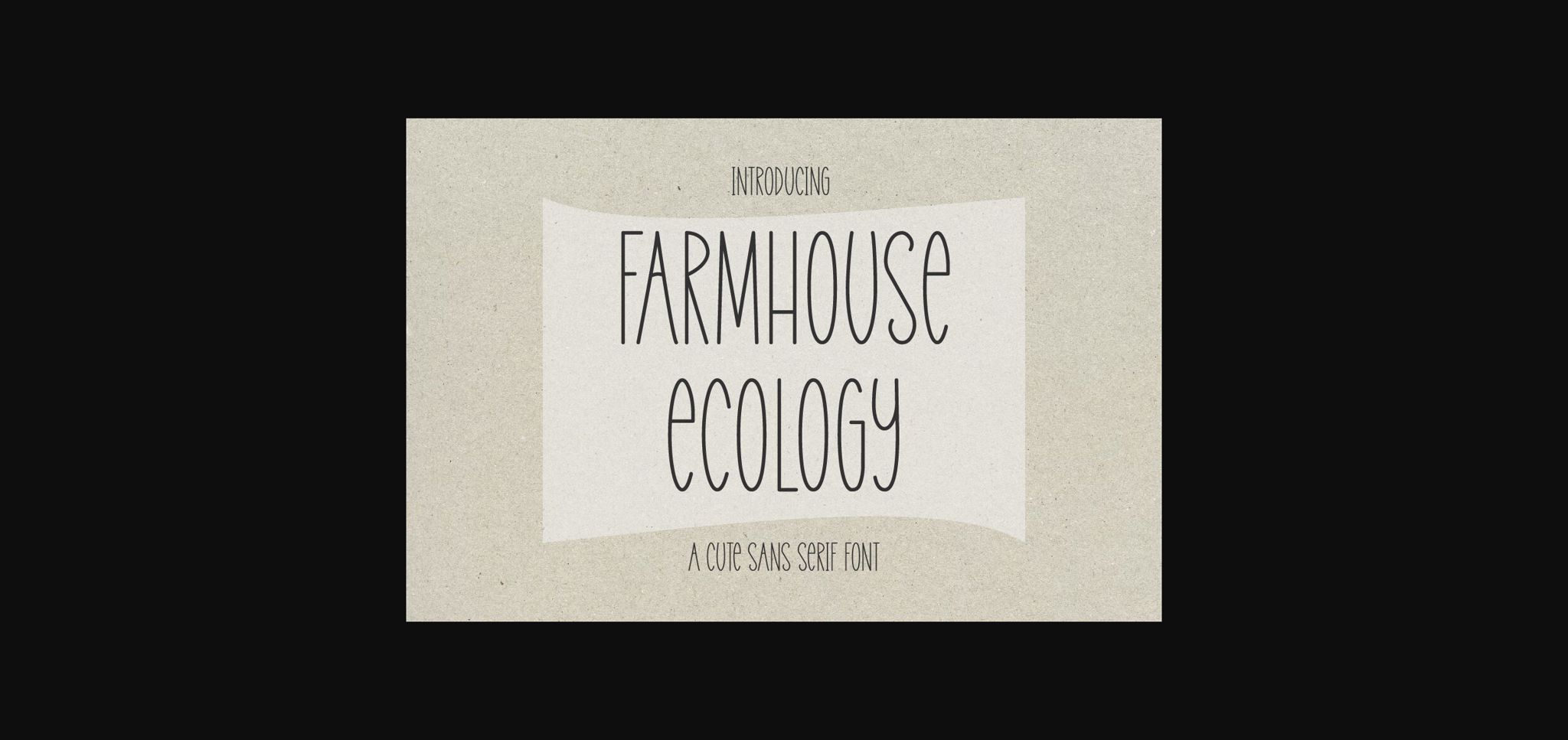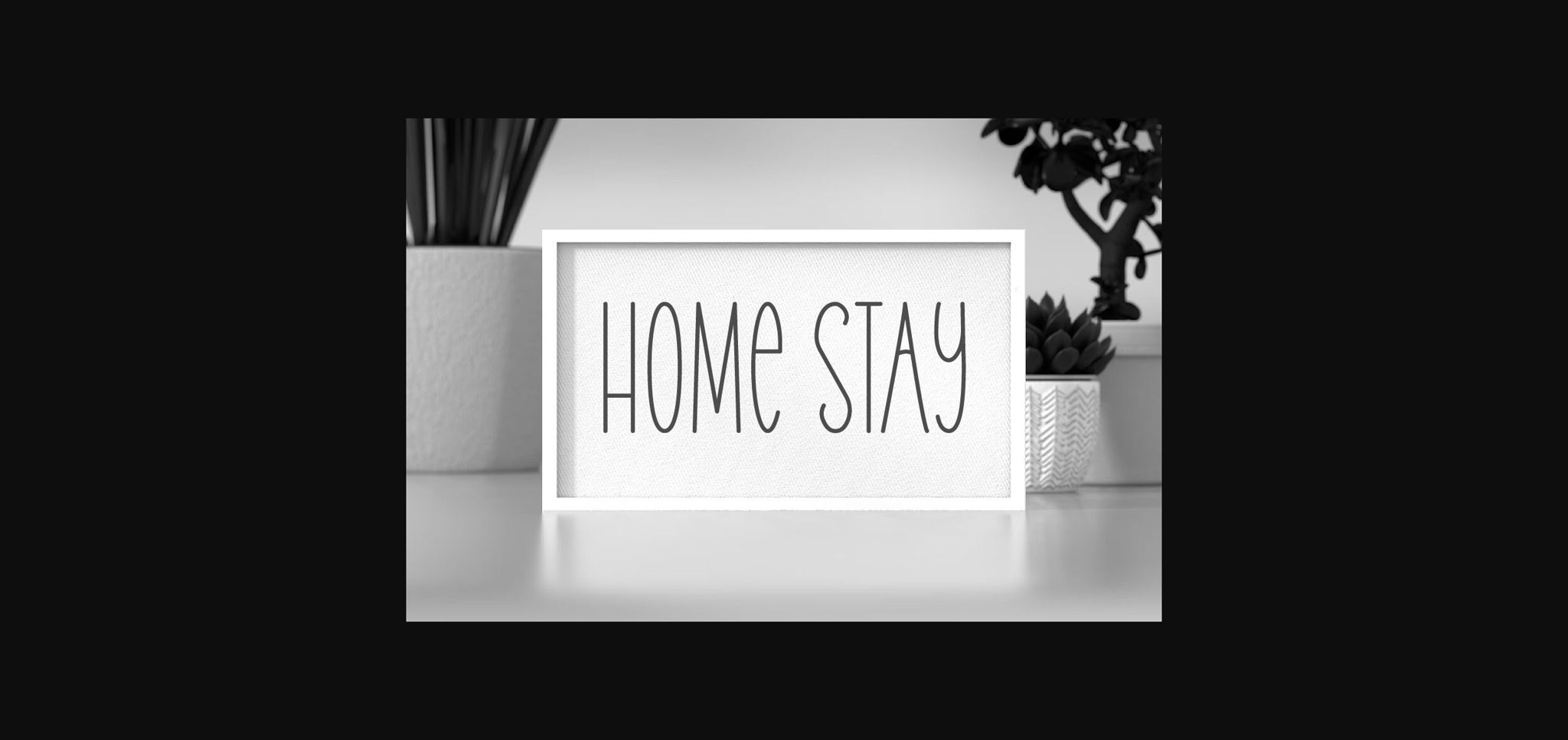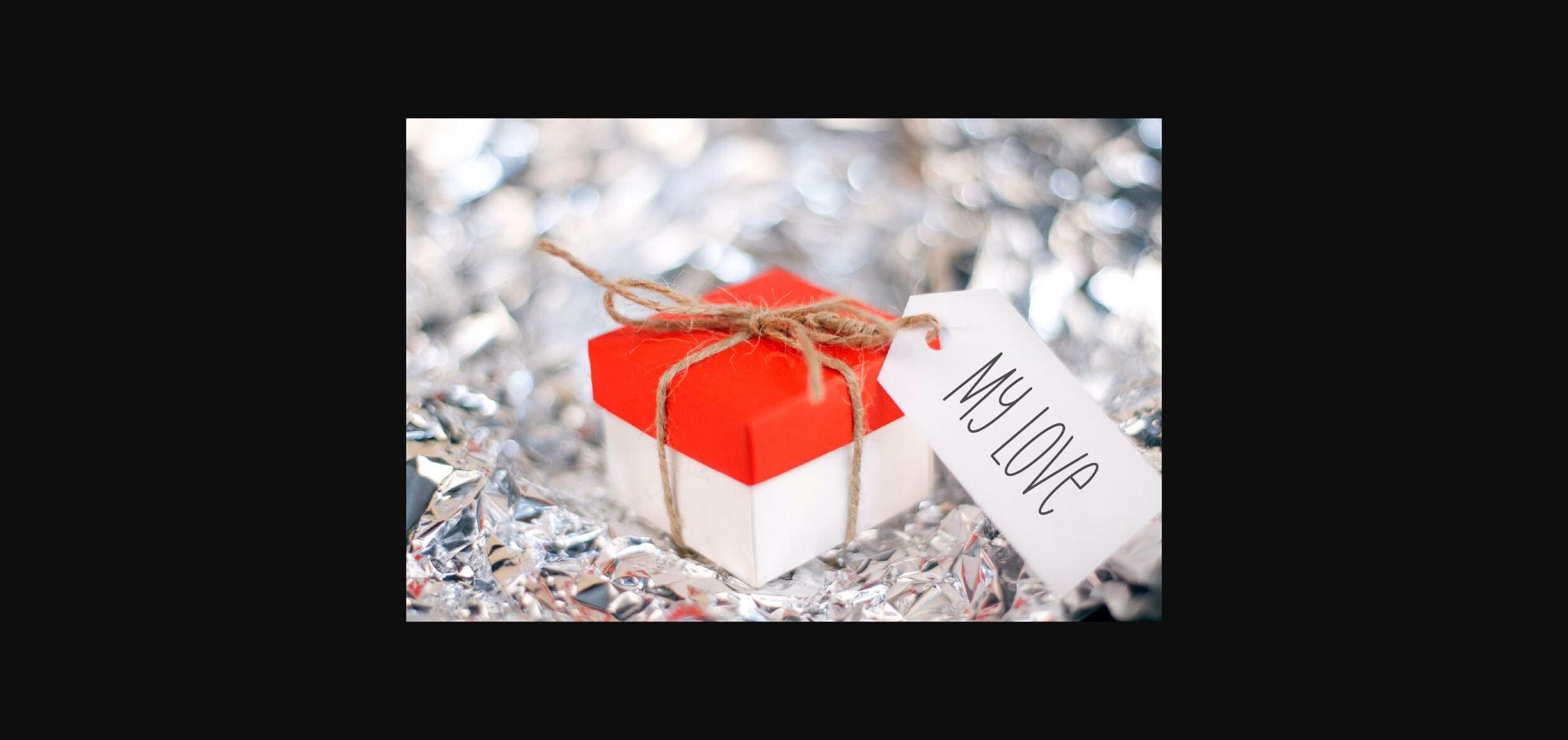
About Farmhouse Ecology Font
Farmhouse Ecology is a tall and thin sans serif font perfect for your home decor and craft designs. This font is also suitable for party invitations, signs,label gift, greeting cards, t-shirt design, frame quotes, country decor, farmhouse signs, websites, branding, children’s designs, blogs, logos, invitations, etc.